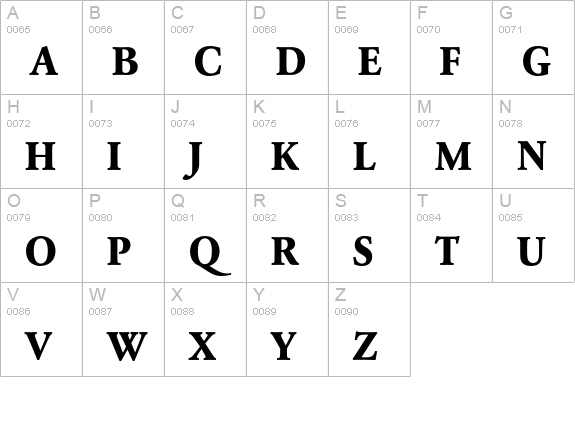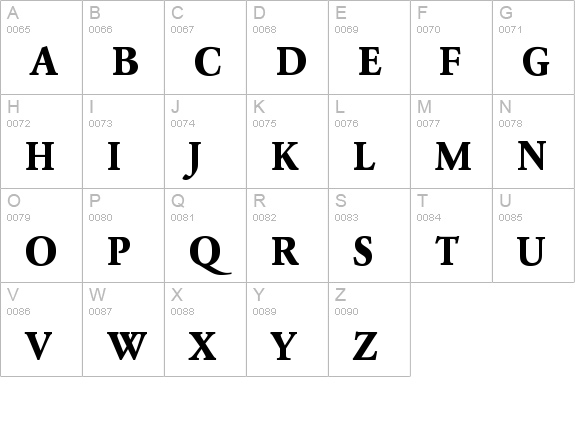
Garamond R Font Details
Garamond R font is a timeless and elegant typeface that exudes sophistication and class. With its delicate serifs and graceful curves, this font captures the essence of traditional typography while adding a modern twist. Its clean and balanced letterforms make it highly legible, ensuring a seamless reading experience across various mediums. Garamond R font is perfect for a wide range of design projects, from print materials such as books, magazines, and brochures, to digital platforms like websites and mobile applications. It effortlessly combines professionalism and creativity, making it suitable for both formal and informal contexts. What makes Garamond R font even more appealing is that it is freely available to download at FontsMarket.com. This means that designers, writers, and creatives from all walks of life can access this exceptional font without any cost. Whether you're a seasoned professional or a budding enthusiast, Garamond R font opens up a world of possibilities, allowing you to bring your creative visions to life. With its versatility and timeless appeal, Garamond R font is sure to elevate any design project to new heights. Its classic yet contemporary aesthetic, coupled with its generous availability, makes it a must-have for designers seeking a font that combines functionality, beauty, and affordability. Embrace the elegance of Garamond R font and unlock a world of creative possibilities for your next project. Download it for free at FontsMarket.com and let your creativity soar.